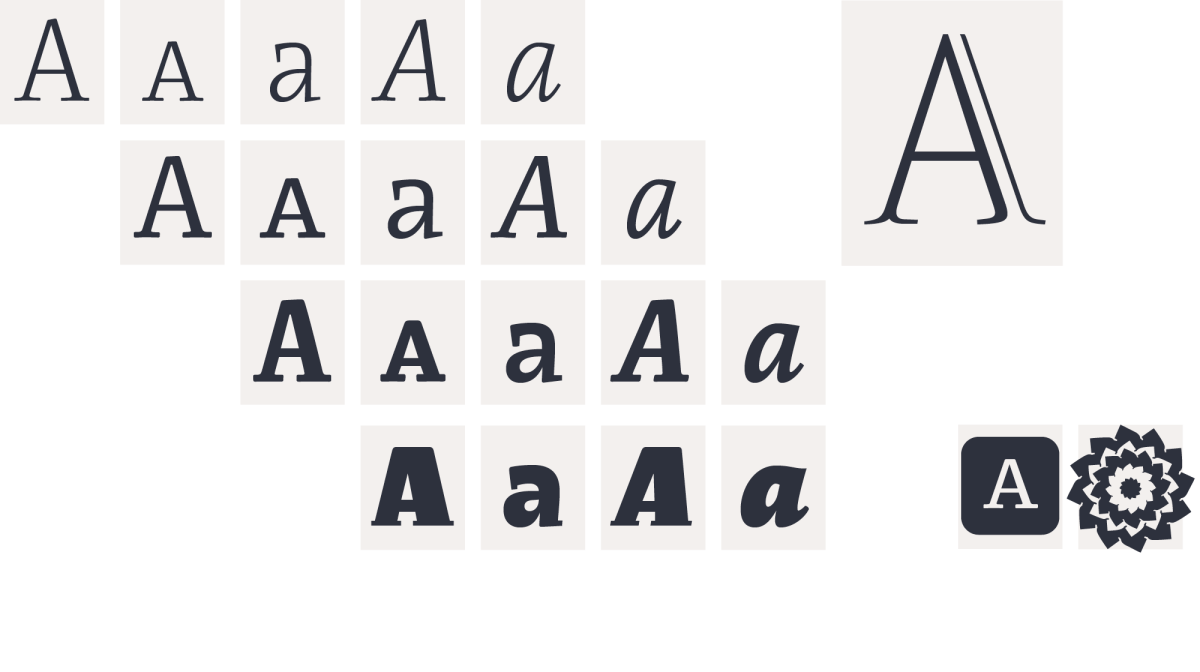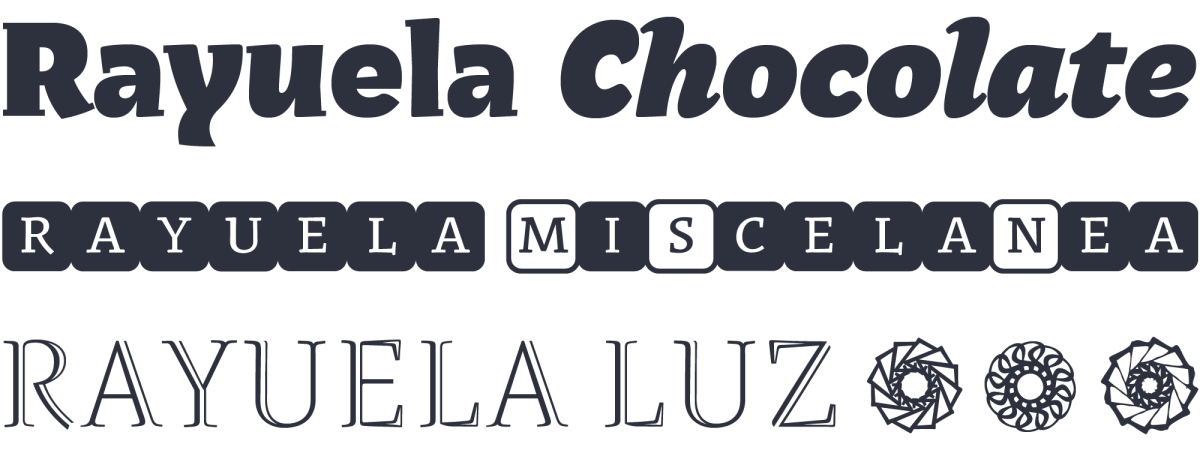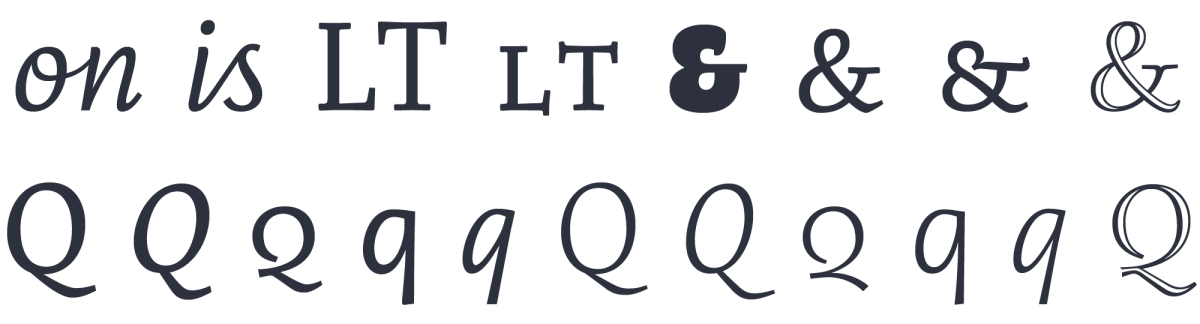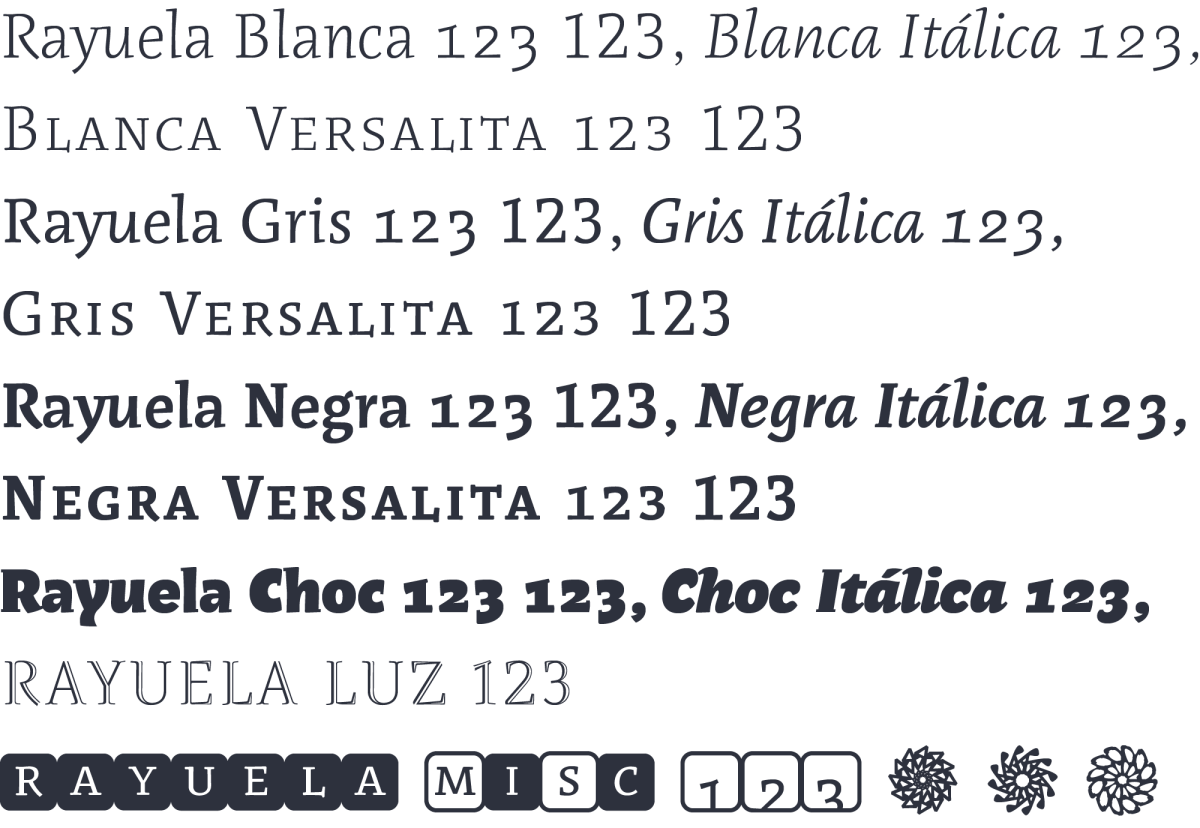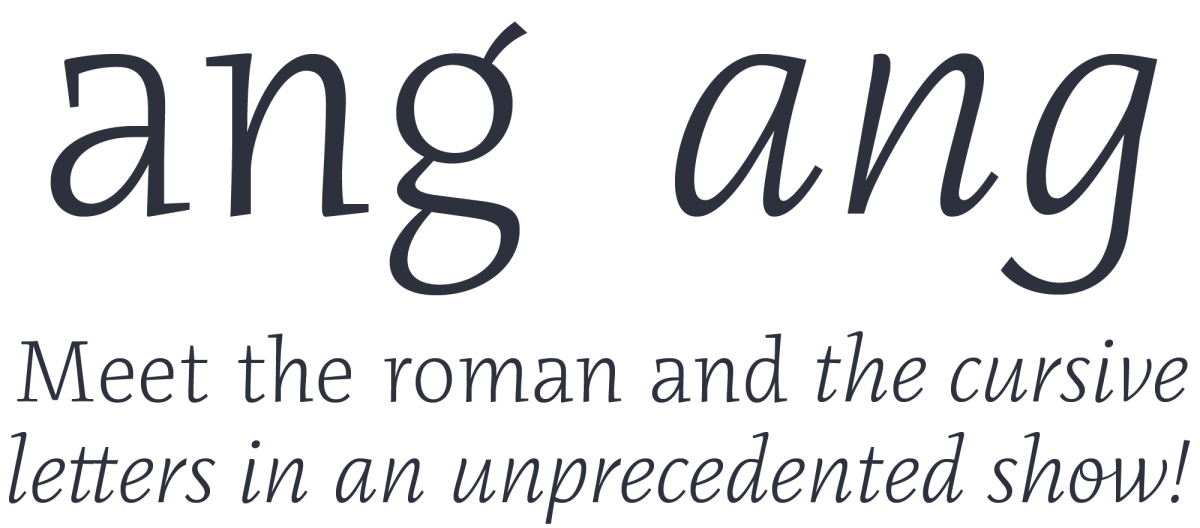
Rayuela. A typographic hopscotch to play
Since its release Rayuela has been a popular face, maybe because there are not so many informal-spirited typefaces which enjoy good readability within inmerse reading. Rayuela (Argentine Spanish for Hopscotch) is inspired by the homonymous novel by celebrated Argentinean writer Julio Cortázar, whose oeuvre is considered a key to 20th century avant-garde Hispanic literature.
Origin
Rayuela is the result of a 2-year working process made by Alejandro at two postgraduate courses: at the University of Reading, UK (1999-2000) and at the ANRT Atelier National de Recherche Typographique, Nancy, France (2000-2001). At both schools the type Rayuela worked as the practical side of research. Rayuela (Argentine Spanish for Hopscotch) is inspired by the homonymous novel by celebrated Argentinean writer Julio Cortázar whose oeuvre is considered a key to 20th century avant-garde Hispanic literature.
Informal inspiration
The type aims to reflect the ludic atmosphere of the novel, thorugh a dynamic, half-serifing stroke, which brings the roman closer to an italic spirit. This later lead to the need of creating an italic of strong cursiveness, and so offer a enough rhythm contrast with the roman and therefore both types could interact with clarity and harmony.
Display sorts to play
The family wouldn’t have been completed without display sorts, destined to set texts of lesser formality, with less readability constraints. Experimentation took us to a very black version named Rayuela Chocolate, by reaching the limits of the letters’ structure. We also designed the open face Rayuela Luz, and a playful scrabble-like font Rayuela Miscelanea, which also includes elegant, contemporary fleurons.
Diversity & divertimento
More than a stylistic consistenncy it is a spirit of diversity what governs the design of Rayuela. Thus there are alternatives for some glyphs, something not very common before the appearance of OpenType. Similarly smallcaps haver divergent designs from their parent capitals, and letter 'q' takes always a distinct shape from one font to the other, as well as the ampersands. All this allows for a less monotonous, slightly vibrant kind of text, as irregularities, typical of handwriting, help to compensate the characteristic stiffness of type composition. These divergences, we believe, express better the quality of Cortázar’s aesthetic quests.